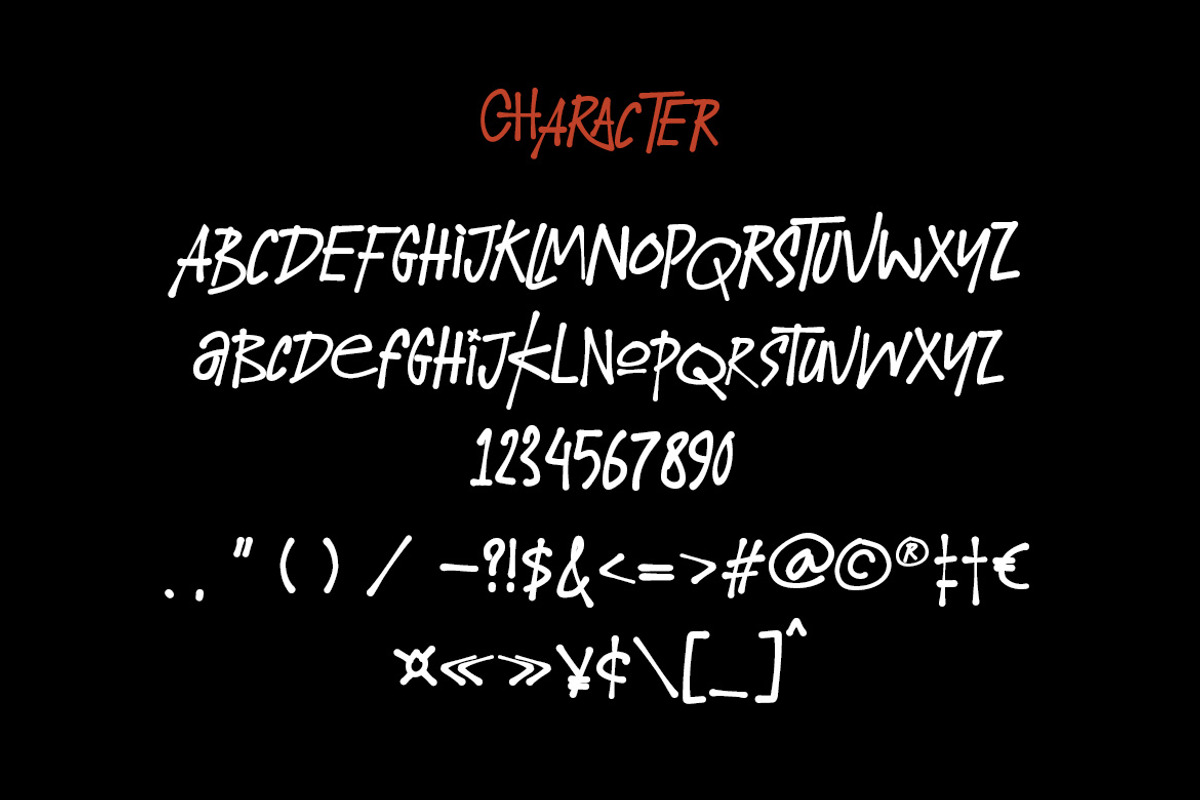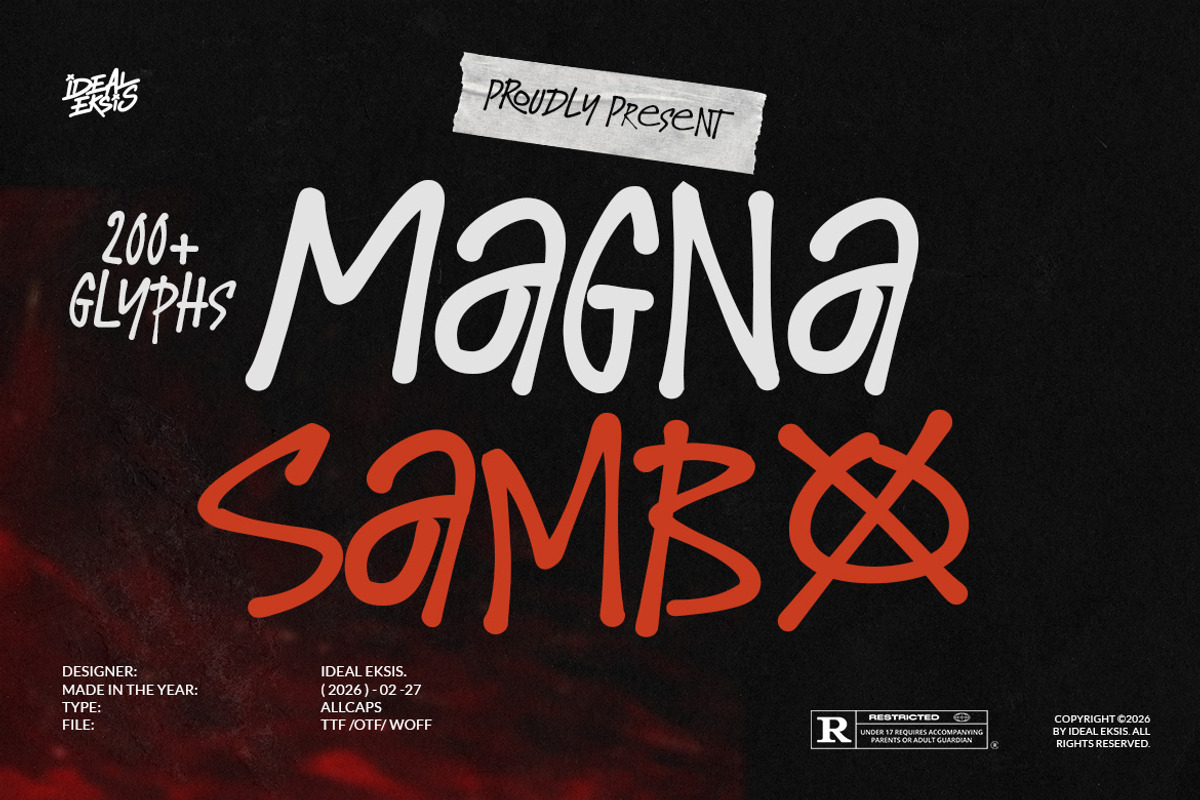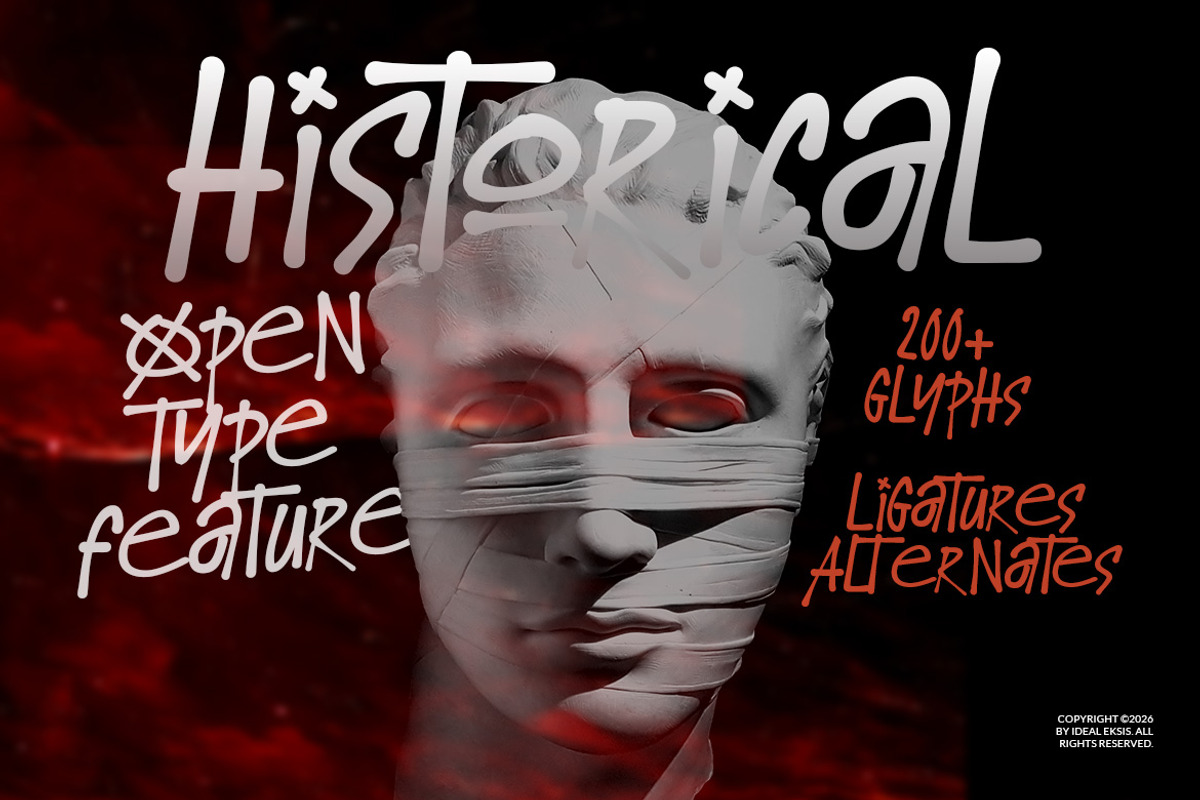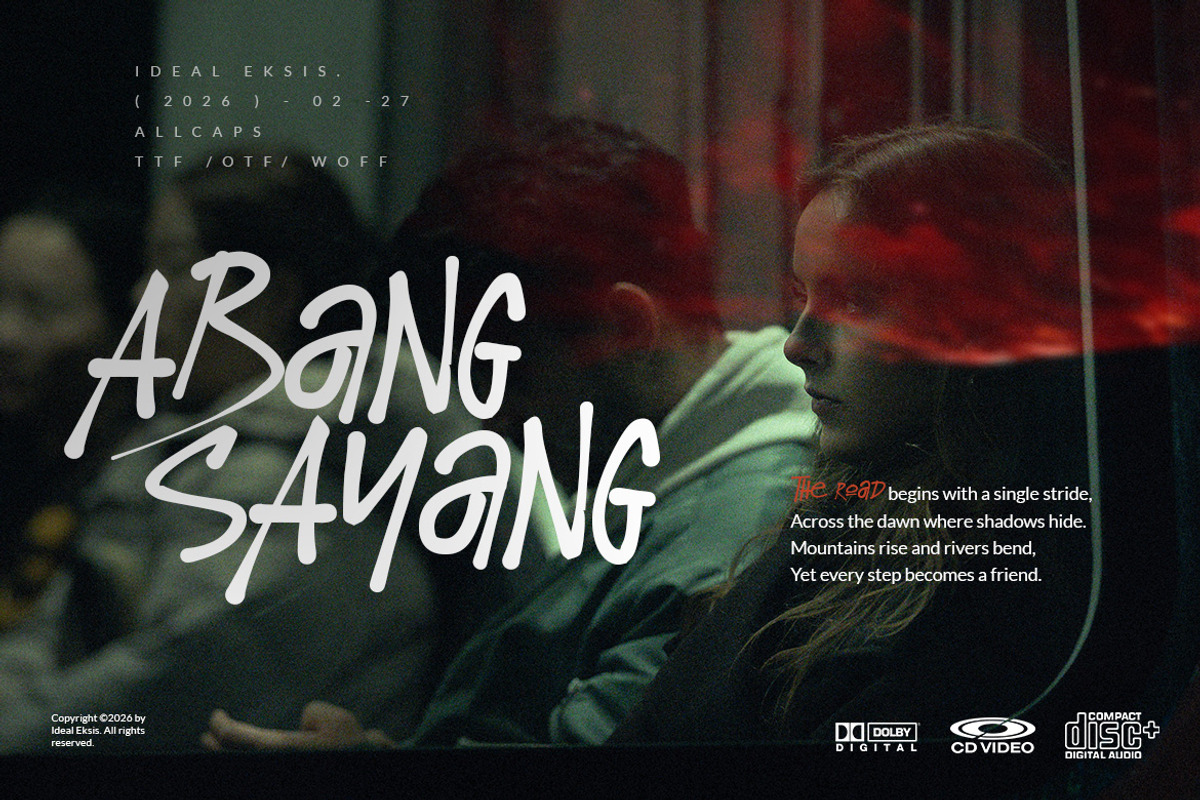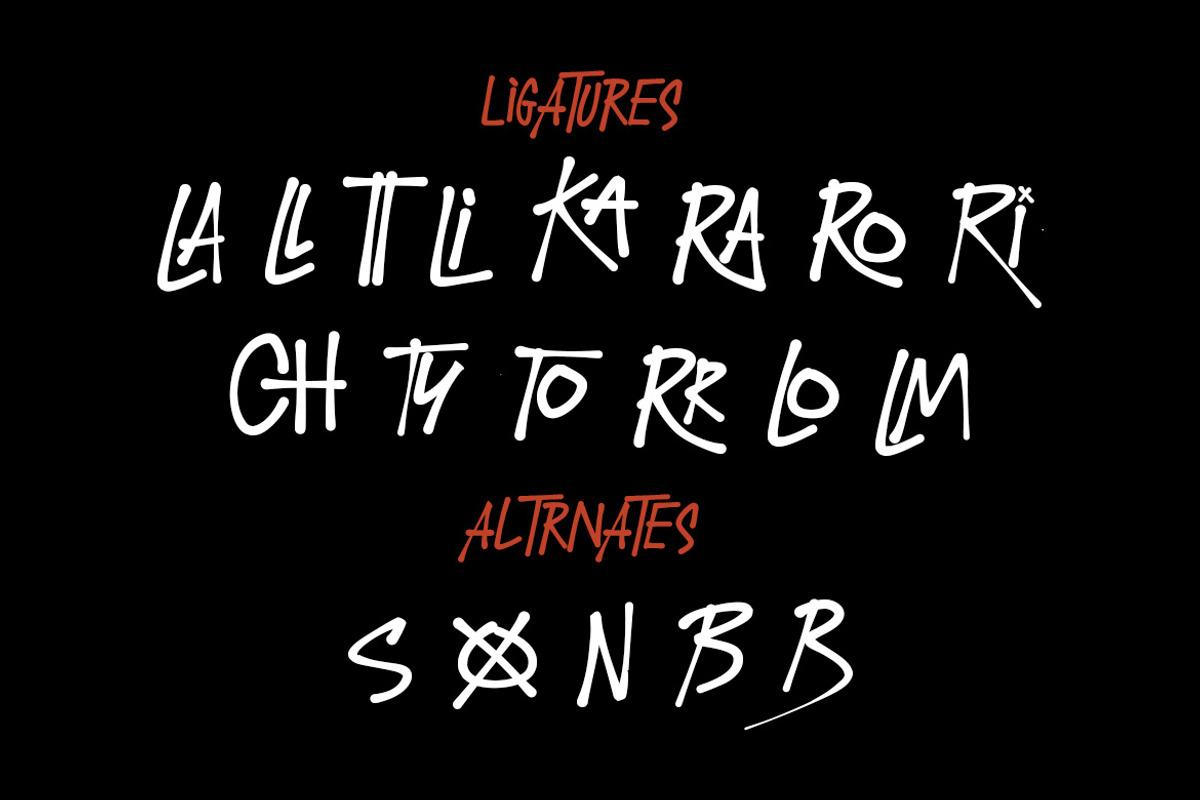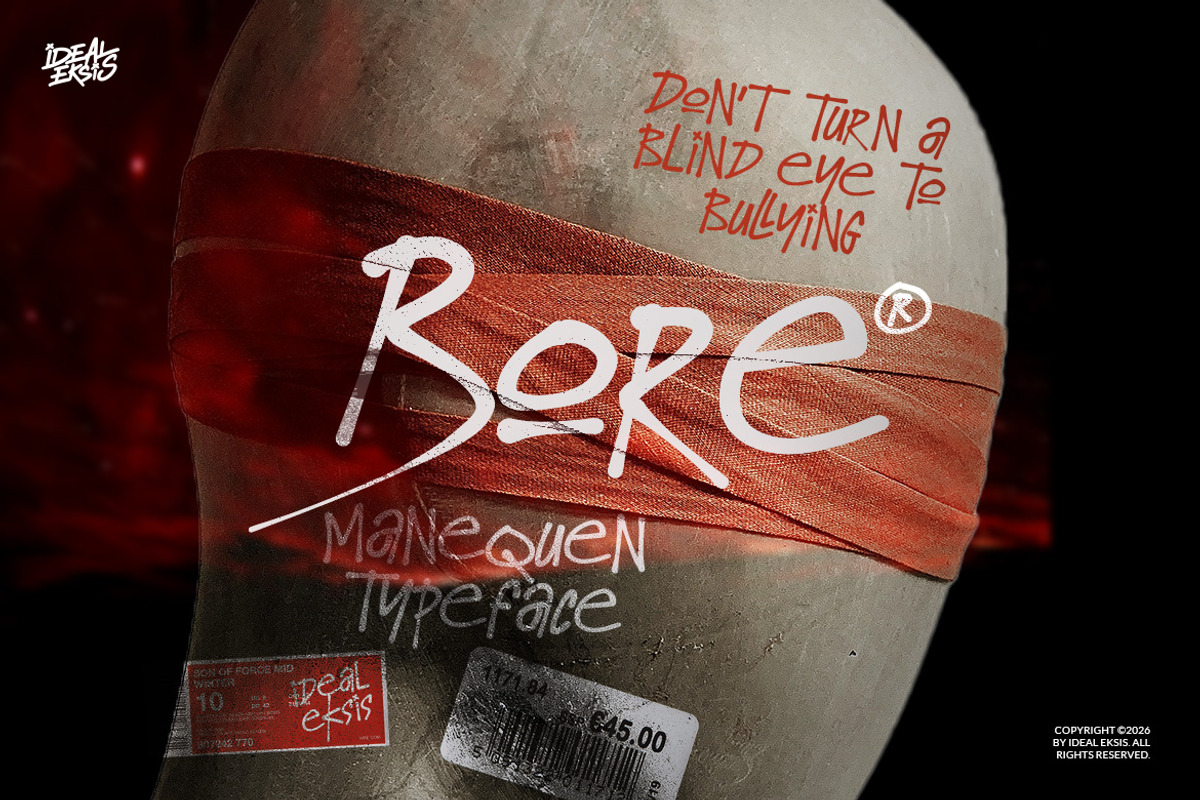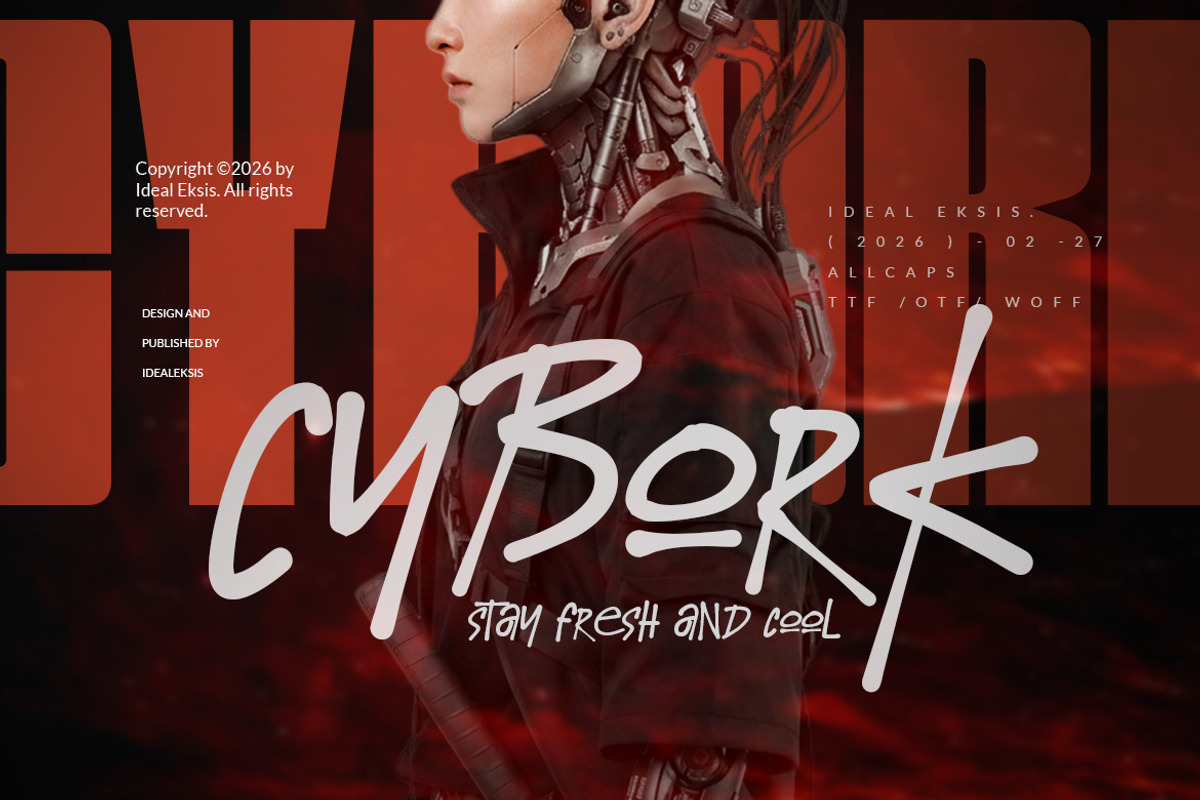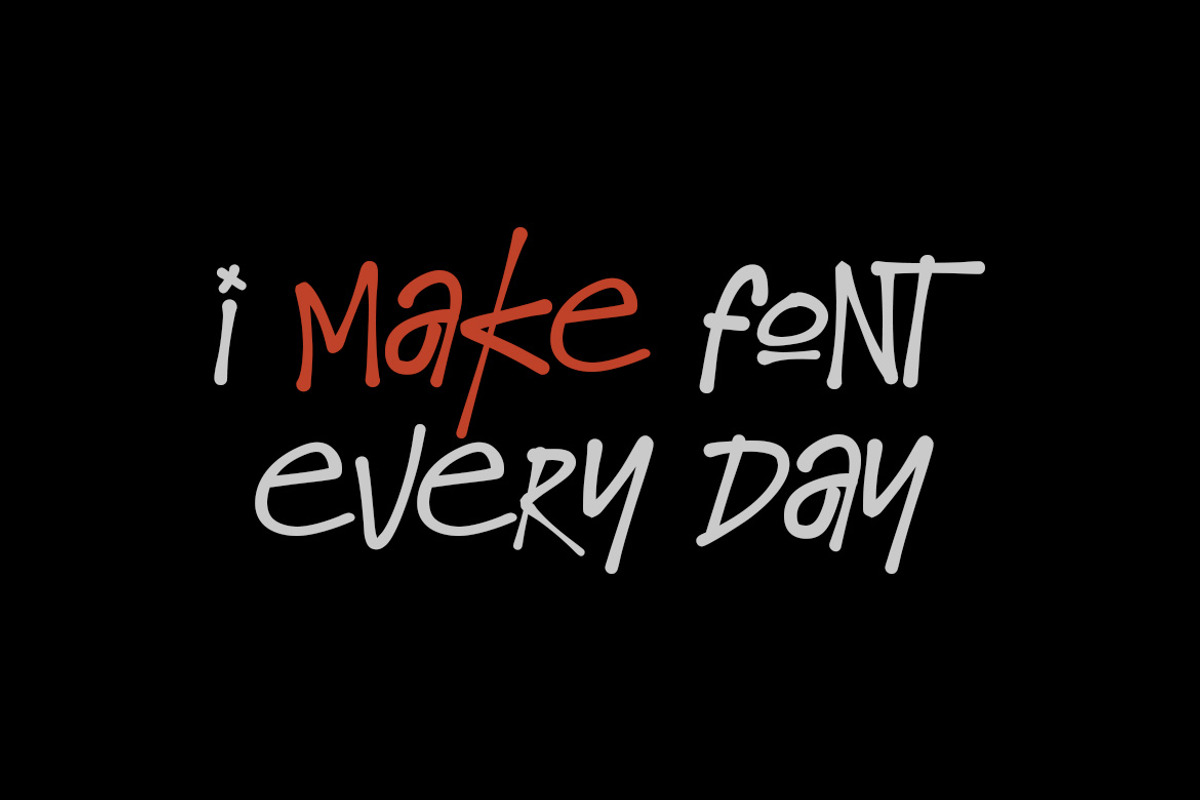
Magna Sambo
Magna Sambo is a bold, expressive typeface that captures the raw energy of street art and marker calligraphy. The letterforms are characterized by thick, uniform strokes with rounded terminals, suggesting the use of a wide-nib permanent marker
Uppercase (All Caps)
Alternate
Numerals